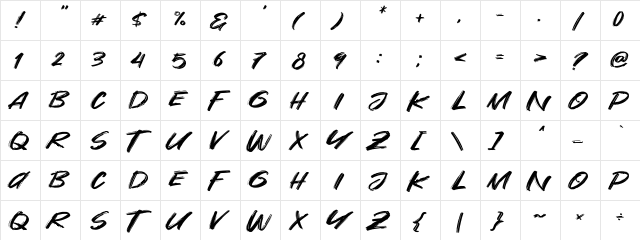
Are You Okay Regular
| Foundry | Khurasan |
| Designer | Khurasan |
Design Context for Are You Okay Typeface
Are You Okay is a composed and adaptable typeface that performs quietly and consistently across a wide range of design contexts.